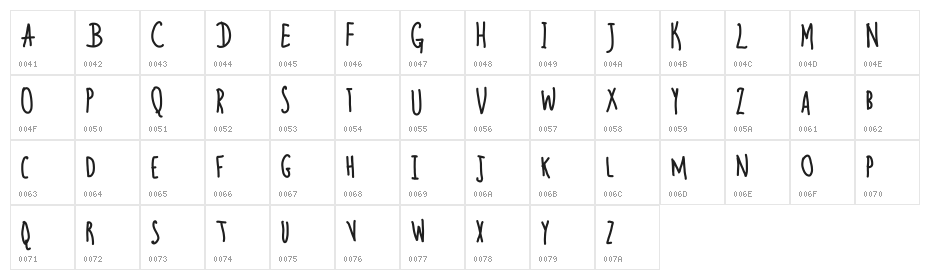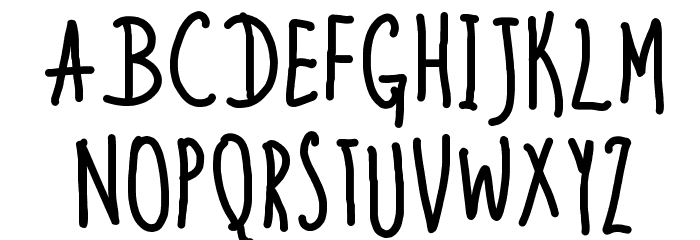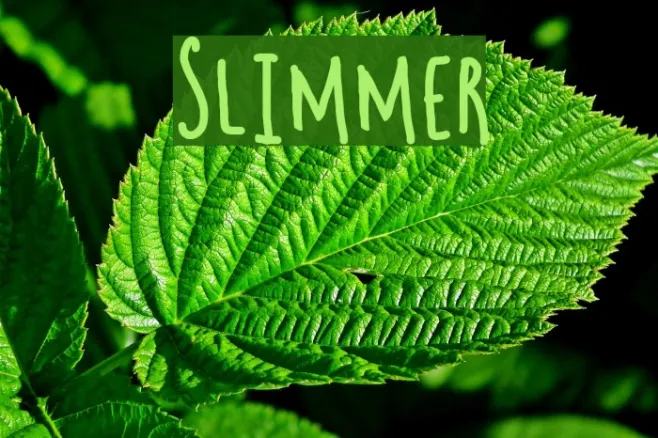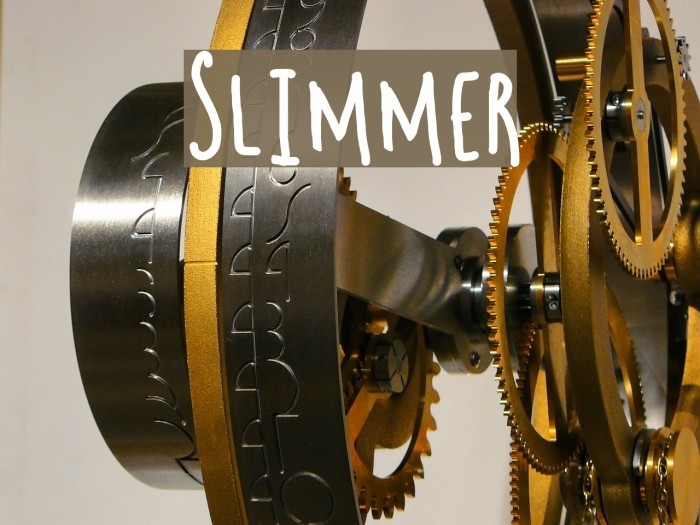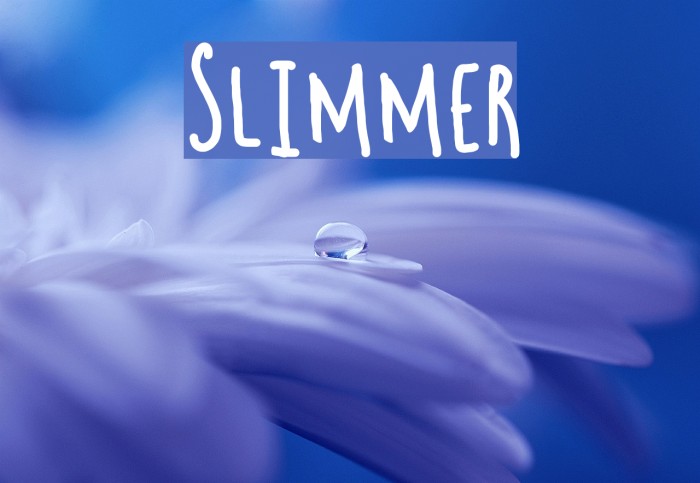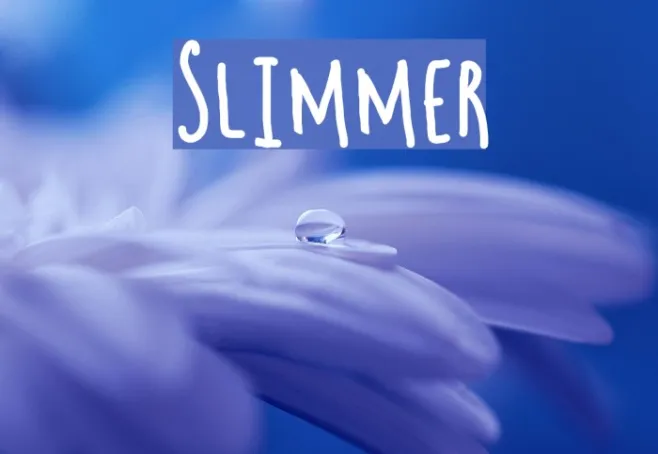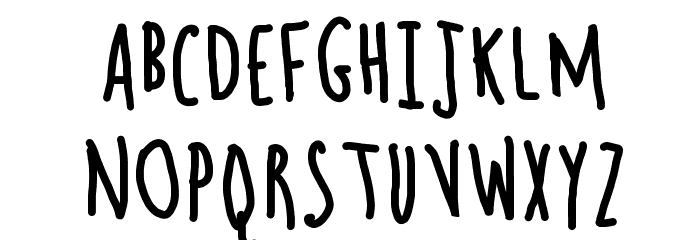
Slimmer Font
Slimmer Description
This font features a playful and casual handwritten style with tall, narrow characters. The strokes are uneven, giving it a natural and organic feel. The uppercase letters are slightly taller than the lowercase, and the overall appearance is informal and friendly. The characters have a consistent width, and the spacing between them is moderate, allowing for good readability. This font is ideal for projects that require a personal touch or a relaxed vibe.
| Use Case | Headlines, Informal text, Personal projects |
| Proposed Projects | Great for greeting cards, invitations, personal blogs, and children's books. |